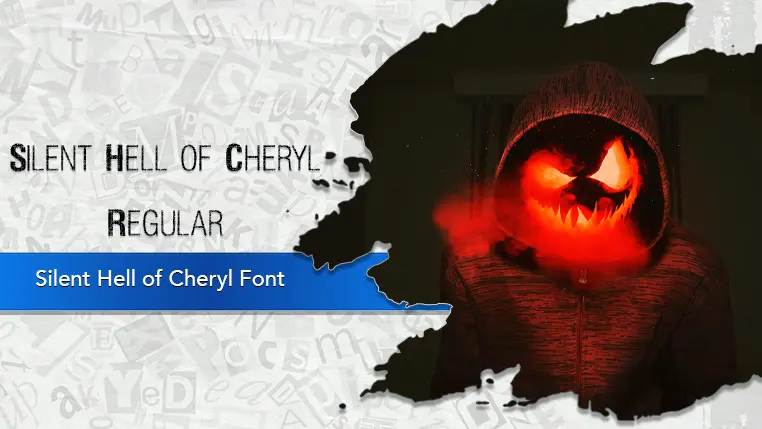
The Silent Hell of Cheryl font family may be ideal for you if you enjoy working on an artistic design project. The lively, expressive look of this typeface, which was created by SDFonts, makes it ideal for Horror-Themed Media and Video Game Fan Art and Projects. This font is perfect for any project related to Halloween, haunted houses, or other spooky events. Its distinct, distressed look makes it a strong choice for graphic design projects where you want to convey a sense of dread, decay, or psychological unease. and other light-hearted visual projects.
Regular, Extended Regular, Condensed Regular are the three primary font styles of the Silent Hell of Cheryl font family. You may build dynamic, visually appealing text layouts with the distinct flair that each style offers. With crisp, readable lines and a relaxed tone.